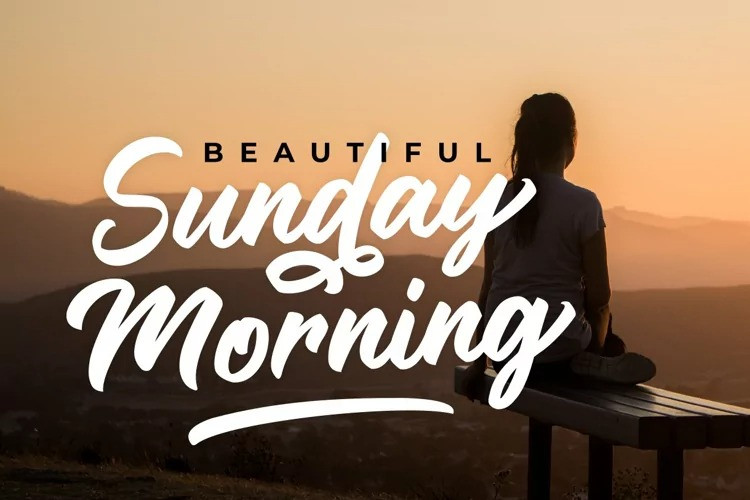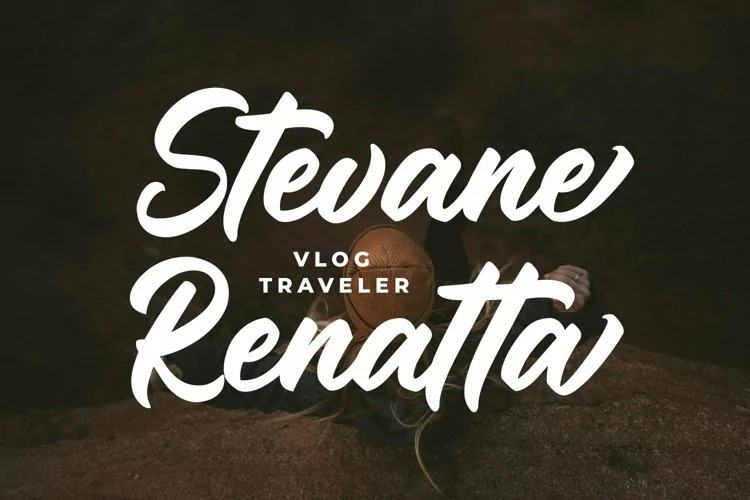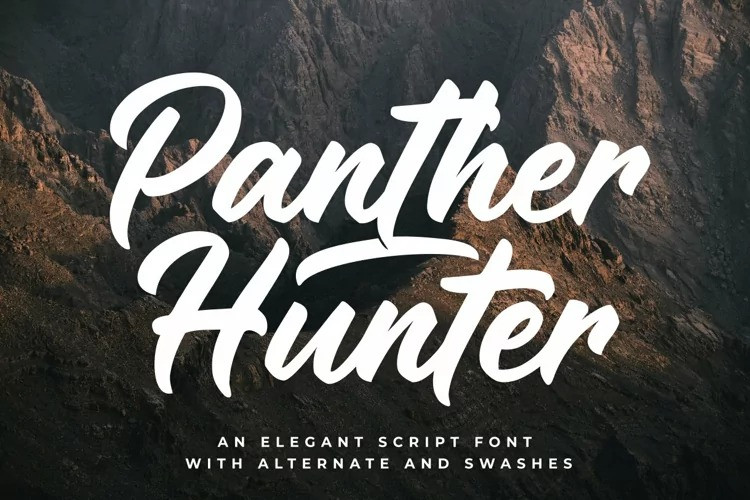
Saint Timothy Script Font feels equally charming and elegant. It looks stunning on wedding invitations, thank you cards, quotes, greeting cards, logos, business cards, and every other design which needs a handwritten touch.
Designer Name: | Timur type |
Classification: | Handwritten Fonts, Script Fonts |
Saint Timothy